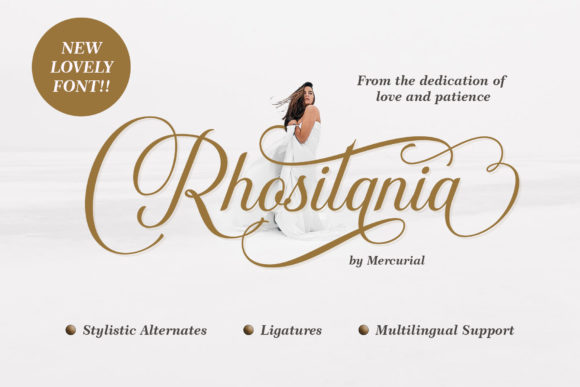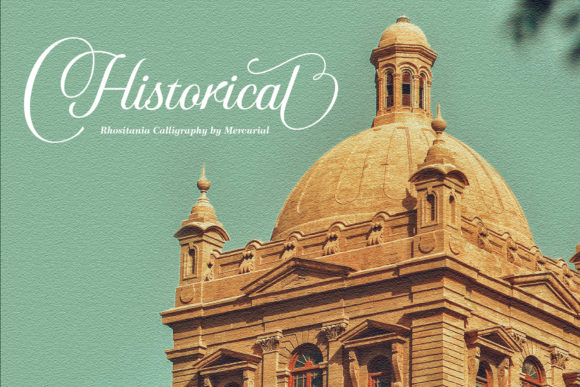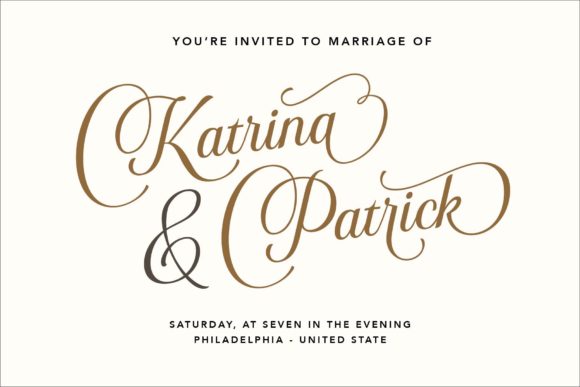
About Rhositania Font
Rhositania is a simple and classy script font, that comes with a variety of uniqueness and beauty. It is PUA encoded which means you can access all of the glyphs and swashes with ease!